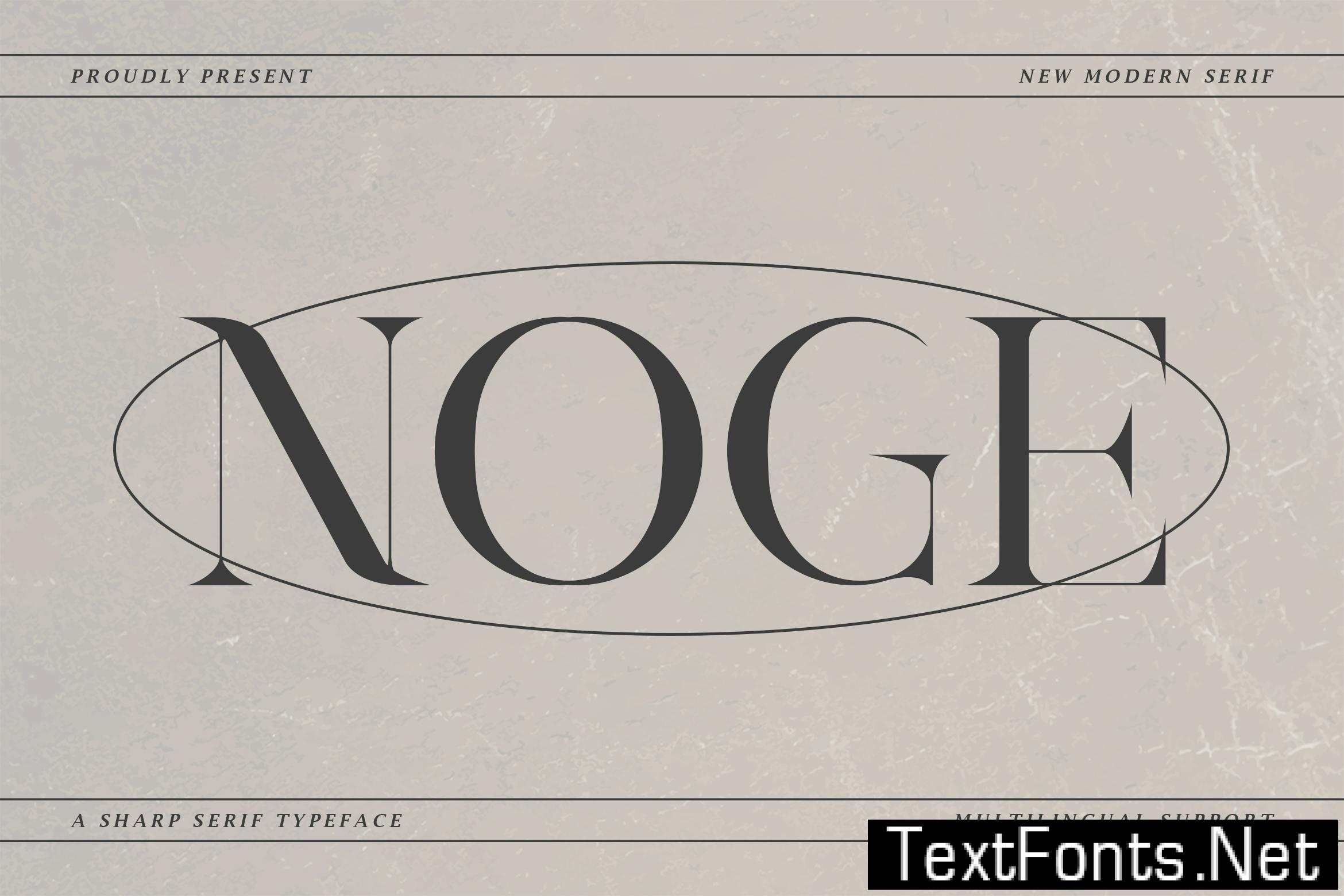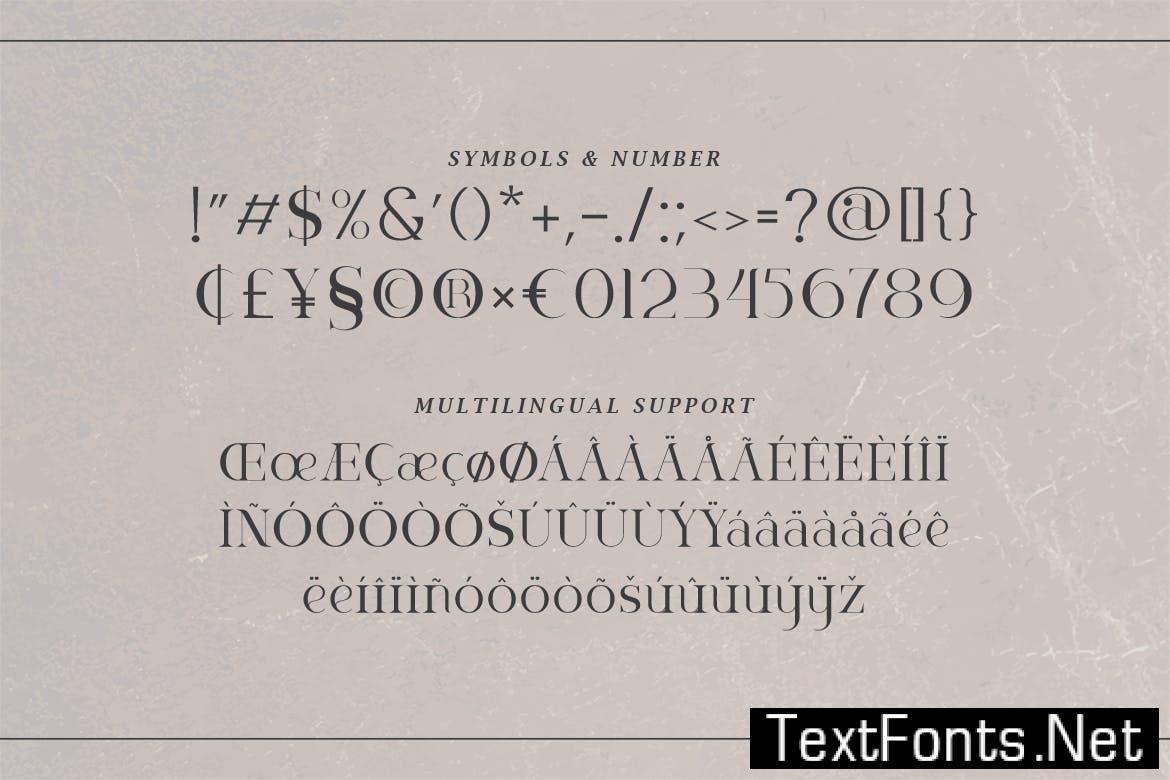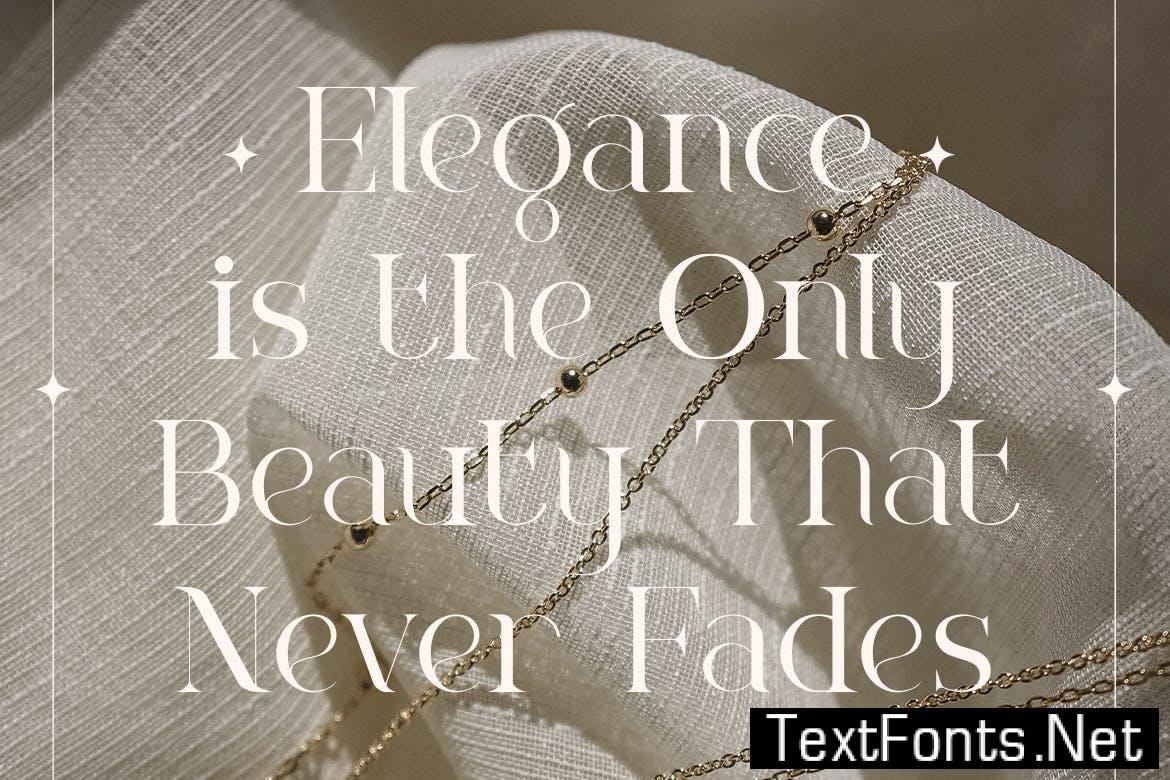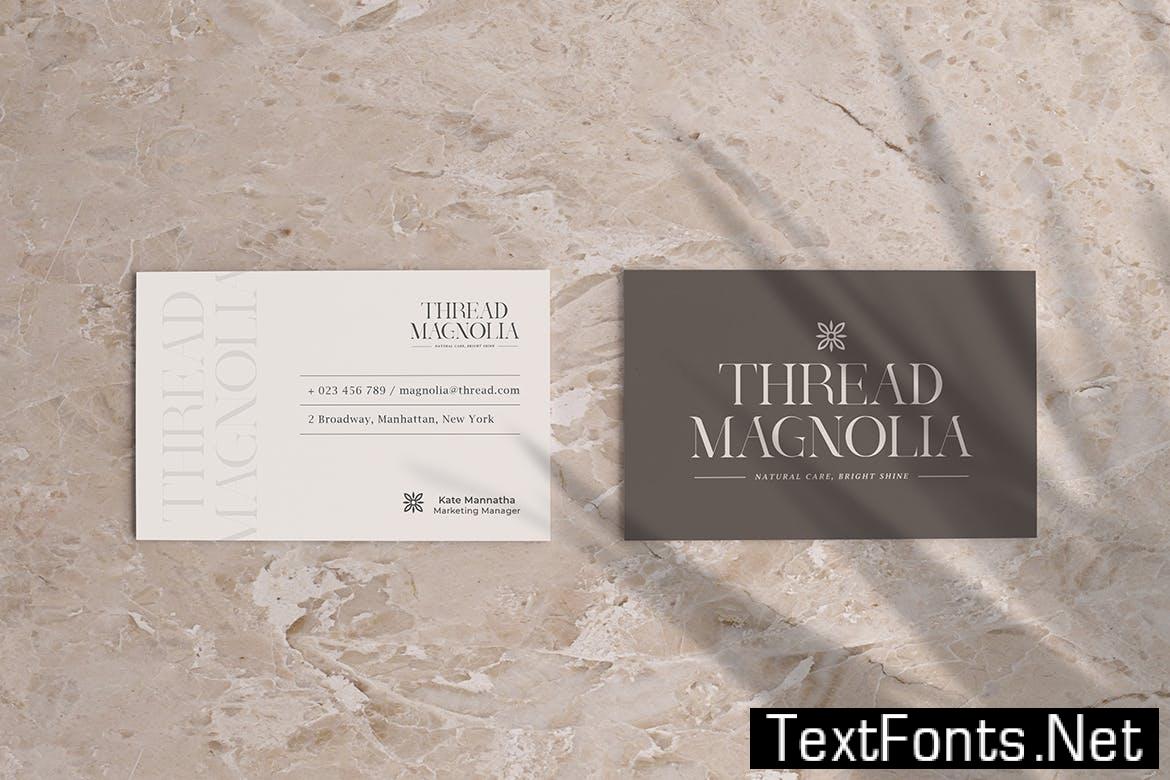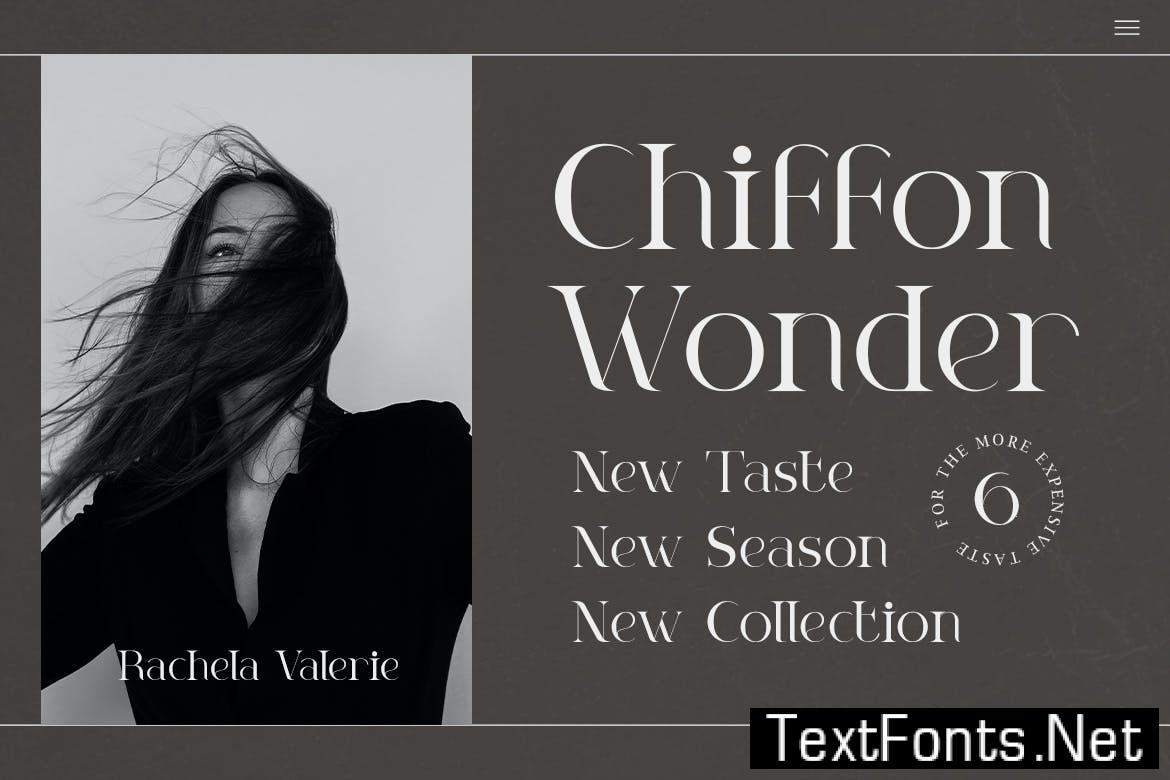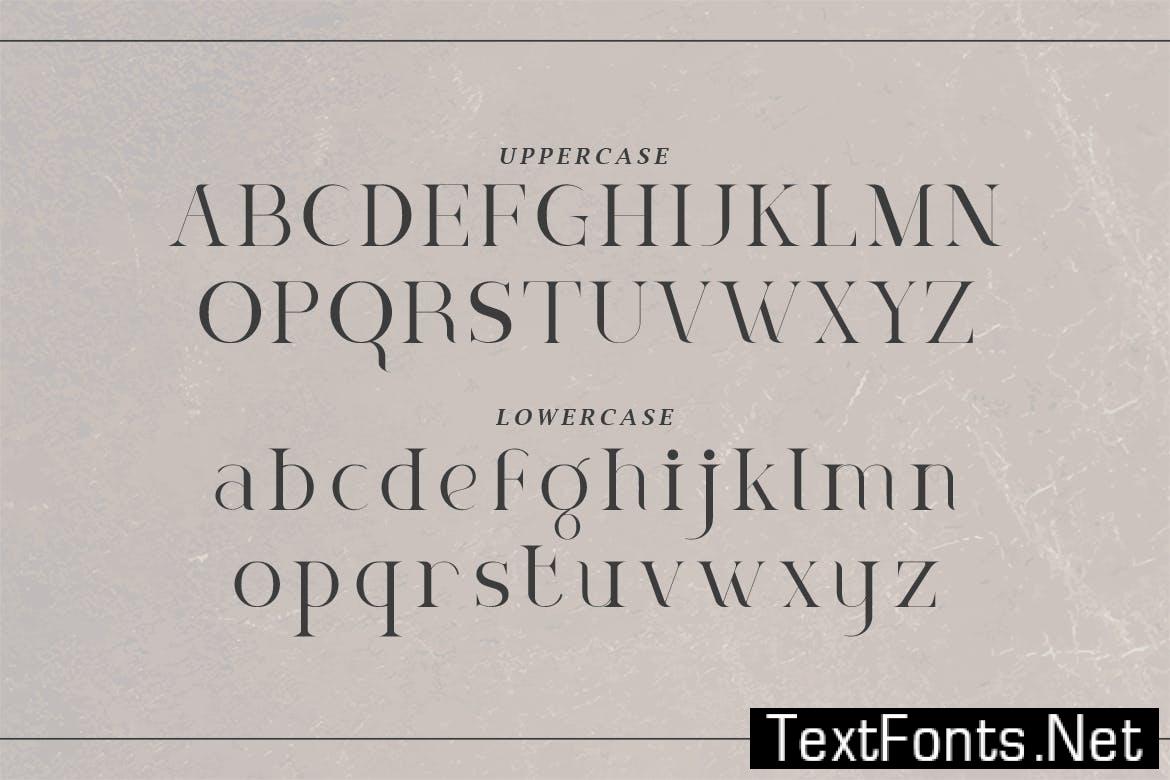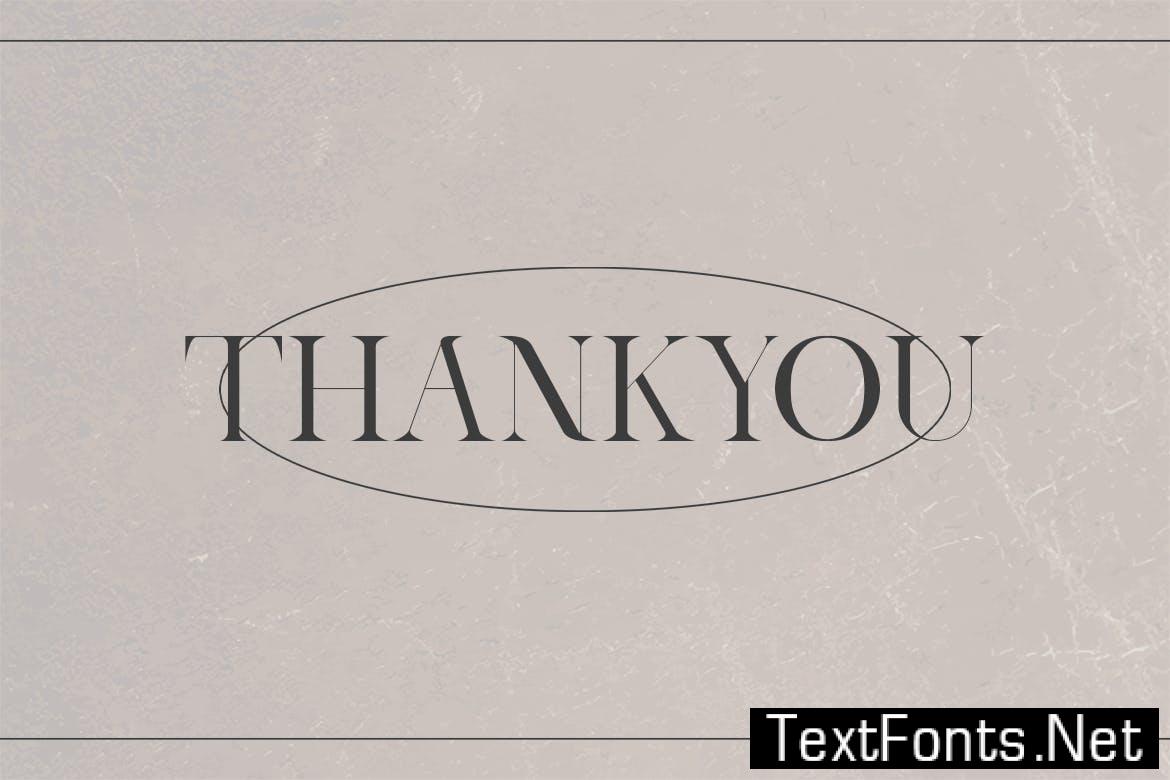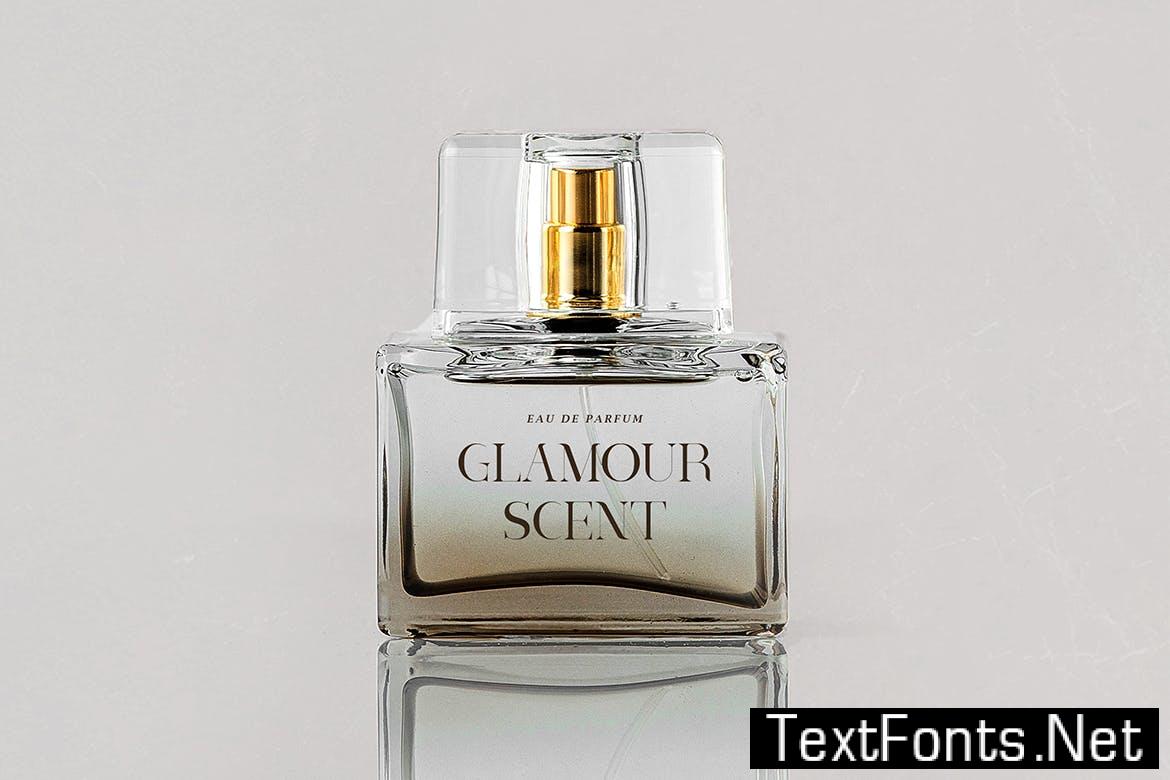
Introducing “Noge” – a sharp serif typeface that exudes elegance and sophistication, perfect for adding a touch of refinement to your designs.
With its clean lines and distinct serifs, “Noge” offers versatility and clarity, making it ideal for branding, editorial layouts, signage, and more.
Embrace the timeless appeal of “Noge” as it effortlessly enhances your designs with its sharp and distinctive typography.
Step into the world of sharp serif typography with “Noge” and elevate your projects with its classic yet modern aesthetic.
Features:
– Uppercase
– Lowercase
– Symbols & Punctuation
– Numeral
– Ligature
– Alternate
– Multilingual Support